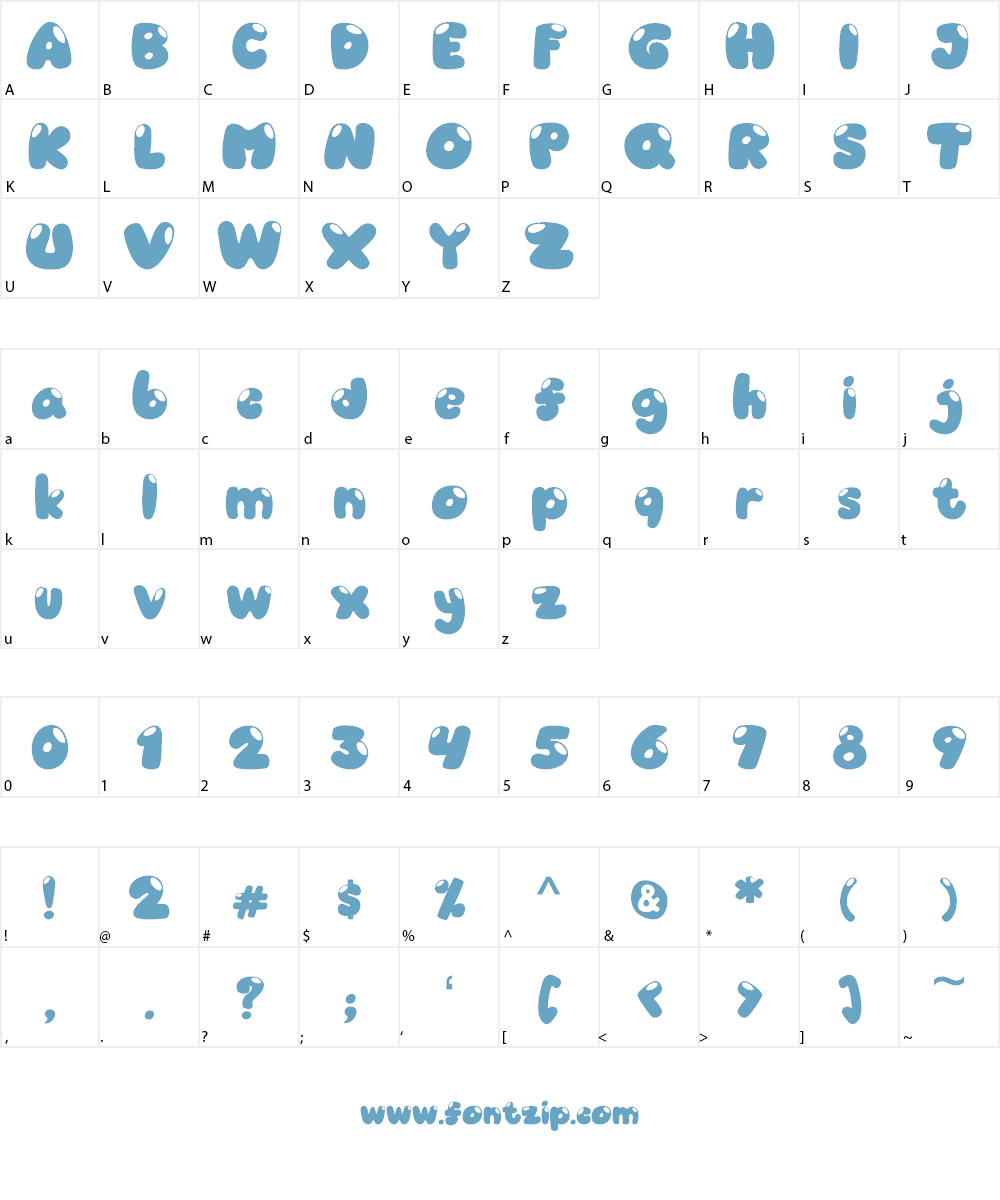
Sweet and legit font. Like Candyshop, this font offers fonts with cute and cute shapes like candy. Suitable for various things related to children, birthday parties, and various other fun things. Welcome to Candyshop:)